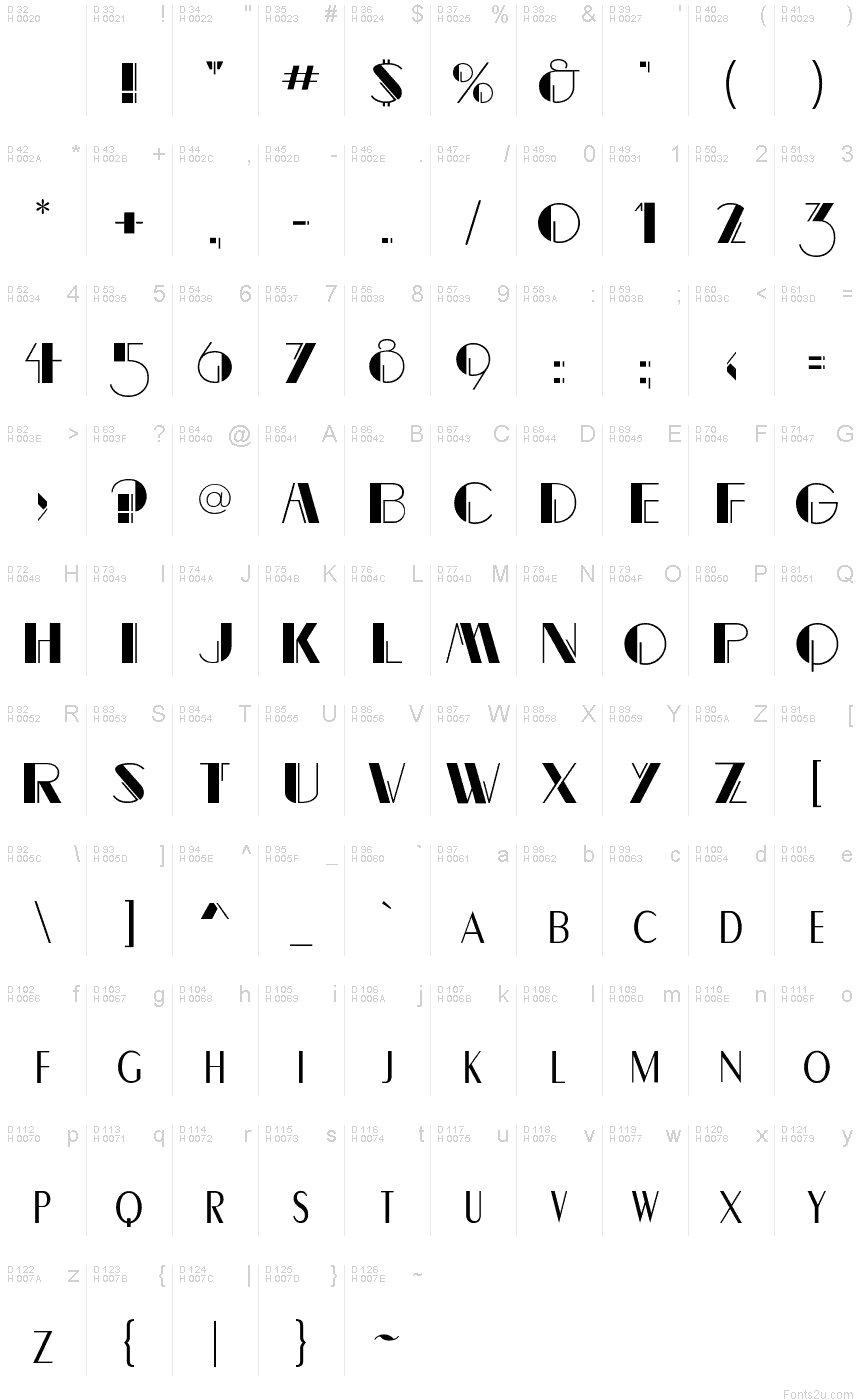
RightBankFLF
Right Bank FLF by Richard A. Ware is a free high-contrast display sans with a sleek, fashion-conscious edge. Very tall capitals combine broad vertical strokes with hairline curves and crossbars, producing an angular silhouette that feels both spare and dramatic.
Its Art Deco leanings make it a convincing choice for fashion branding, cocktail-bar signage, and event posters. The same exaggerated stroke changes can turn a magazine cover line into part of the graphic image, echoing the sharp geometry of architectural photography or streamlined product shots.